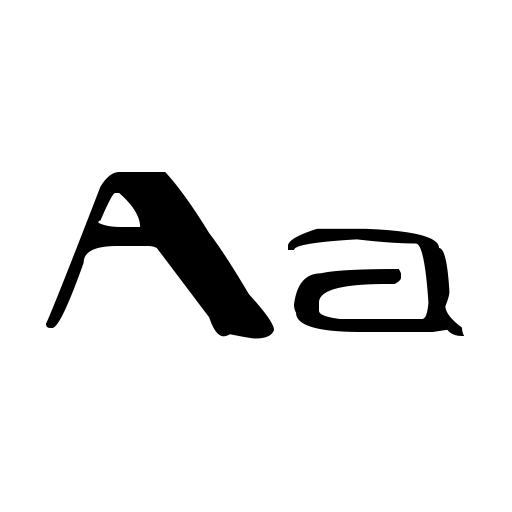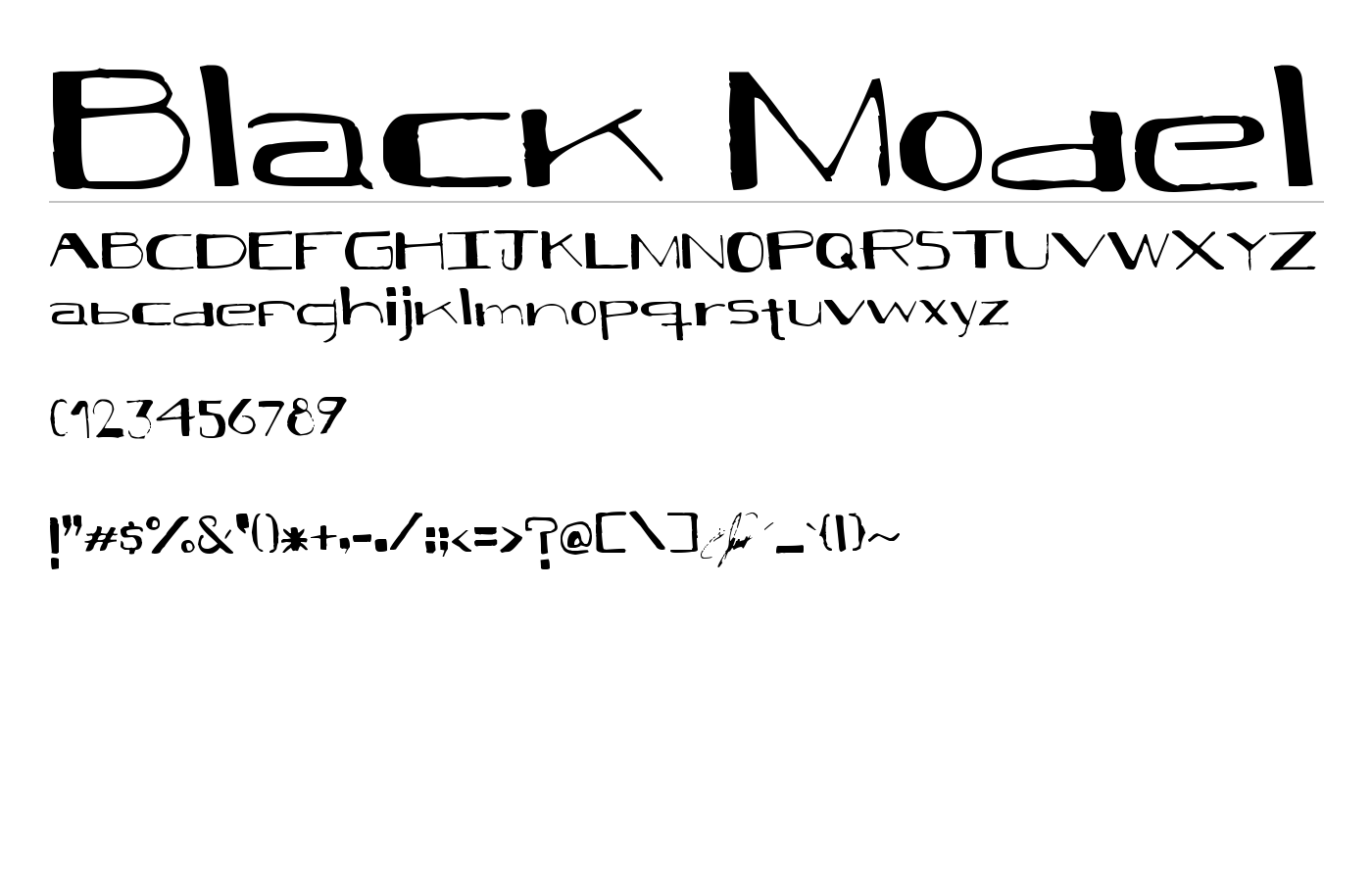
Black Model is a distinctive sans serif font with an irregular, hand-drawn appearance characterized by uneven stroke widths and quirky letter shapes. Its playful and informal style makes it ideal for creative projects, logos, and headlines where a unique, artistic touch is desired. This font stands out with its lively personality, perfect for brands and designs aiming for an expressive and unconventional vibe.
Black Model Font